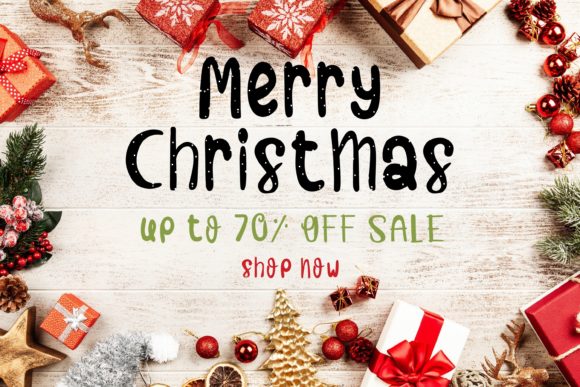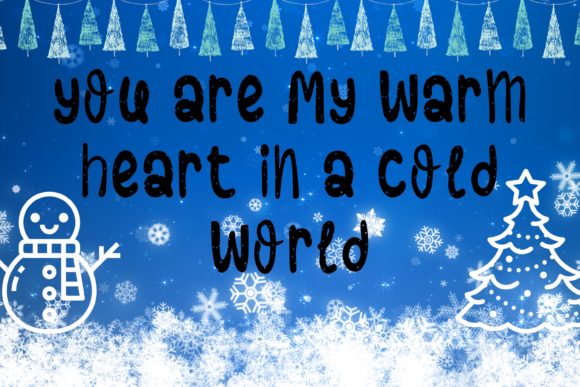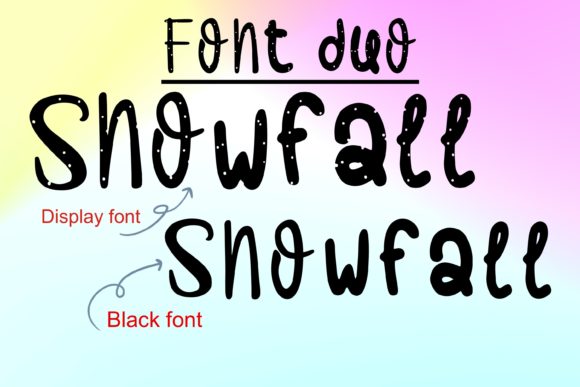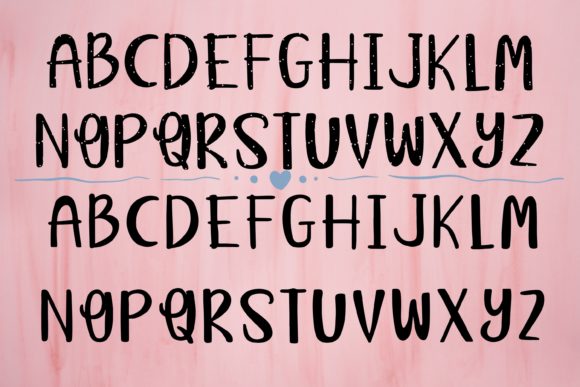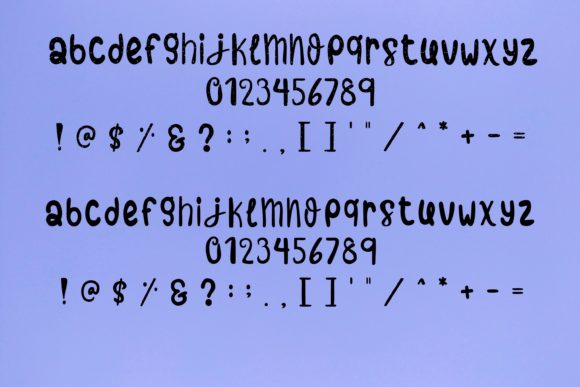
Introduction to Snowfalls Font
Do you remember the excitement of decorating the Christmas tree with your siblings, or the thrill of creating handmade cards for your friends? These little moments of creative expression bring us so much joy, and that’s exactly what the Snowfalls Font is all about – spreading happiness and authenticity through design.
As designers, we’re always on the lookout for the perfect font to bring our creative projects to life. And when it comes to school projects, children’s activities, or any other project that needs a touch of whimsy, the Snowfalls Font is an absolute gem. With its transparent background and free download option, it’s a high-quality design resource that’s easily accessible to everyone.
Key Features of Snowfalls Font
- High-quality design with a transparent background, ideal for creative projects and designs requiring a clean aesthetic.
- Includes a range of characters, including uppercase and lowercase letters, numbers, and punctuation marks, making it suitable for various design applications.
- Perfect for use in creative projects, such as logos, graphics, and typography-based designs, where a unique and elegant font is required.
Honest Review: Snowfalls Font
I recently stumbled upon the Snowfalls Font, and I must say, it’s been a great addition to my design arsenal. This free download has been a game-changer for my creative projects.
- ✨ High-quality design that’s perfect for winter-themed projects or any project that requires a touch of elegance.
- ✨ The font’s transparent background makes it easy to layer with other design elements.
- ⚠️ The font may not be suitable for body text due to its ornate design.
- ⚠️ Some users may find the font too decorative, which can be distracting in certain contexts.
Overall, I’m impressed with the Snowfalls Font. It’s a high-quality design resource that can add a touch of sophistication to any creative project. If you’re looking for a unique font to elevate your designs, I highly recommend giving it a try.
Common Use Cases for Snowfalls Font
The Snowfalls Font is ideal for a variety of creative projects, including wedding invitations, birthday cards, and social media graphics. Its high-quality design and transparent background make it a popular choice among designers.
Can I use the Snowfalls Font on a transparent background?
Yes, the Snowfalls Font is designed to work well on a transparent background. You can use it in combination with images or graphics that have a transparent background, and the font will display correctly. However, please note that the font’s transparency may be affected by the color and design of the background, so you may need to adjust the font’s settings or use a font editor to achieve the desired effect.